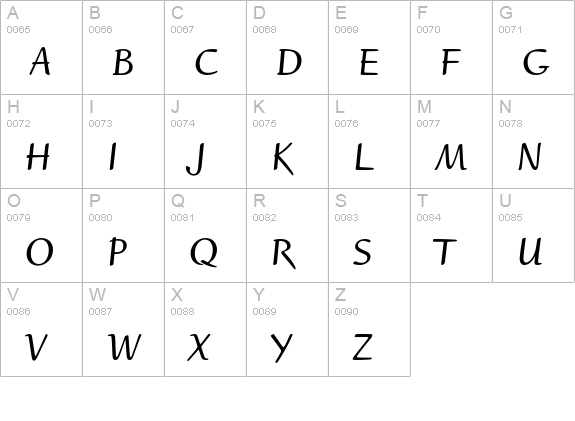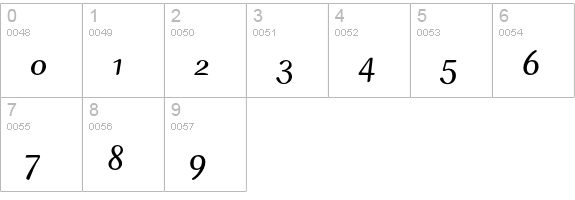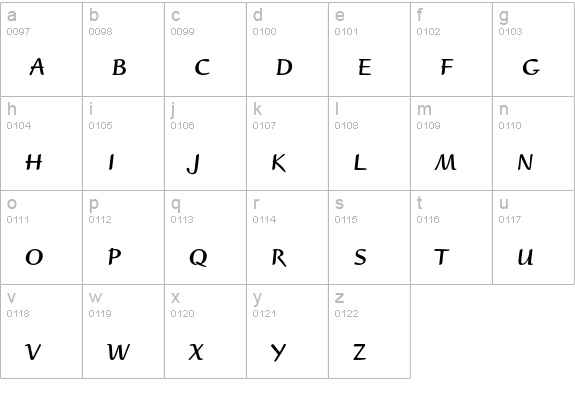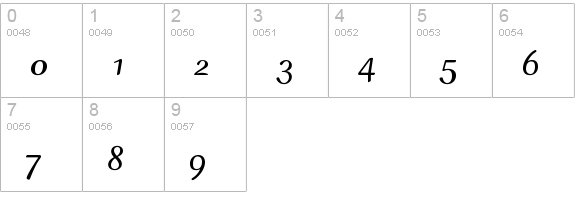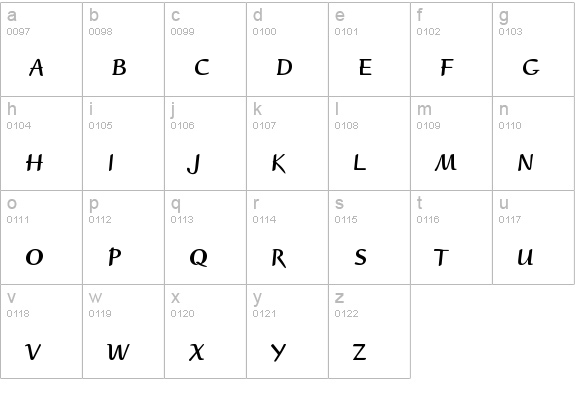
Ruzicka Freehand LH Bold Small Caps & Oldstyle Figures Font Details
Ruzicka Freehand LH Bold Small Caps & Oldstyle Figures is a strong, high-contrast variant in the Ruzicka typeface family \xE2\x80\x94 well suited to headlines, attention-grabbing titles, and strong calls-to-action.
Ruzicka Freehand LH Bold Small Caps & Oldstyle Figures font embodies a harmonious blend of modern sophistication and timeless elegance. With its bold strokes and delicate details, this font exudes a sense of creativity and individuality. The small caps and oldstyle figures add a touch of vintage charm, making it perfect for a wide range of design projects. What sets this font apart is its unique freehand style, giving it a sense of spontaneity and artistic flair. Whether used for headlines, branding, or editorial design, Ruzicka Freehand LH Bold Small Caps & Oldstyle Figures font is sure to make a statement. Best of all, this stunning font is freely available to download at FontsMarket.com, allowing designers and creatives to easily access its beauty and versatility. Elevate your designs with the distinctive appeal of Ruzicka Freehand LH Bold Small Caps & Oldstyle Figures font today.